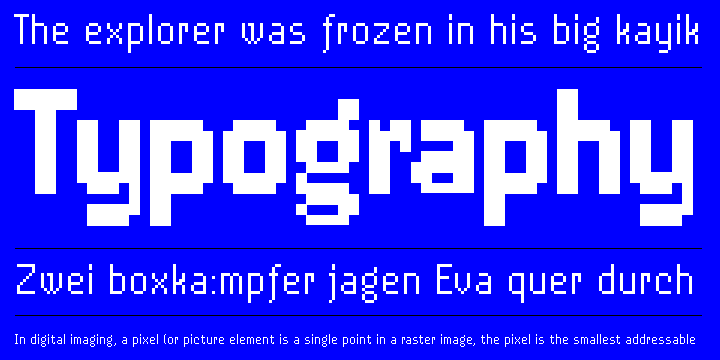
Dixplay
This family is optimized for use at 20 pixels.
Designed by: Eduardo Manso
Designed when: 2003
Dixplay, a typography based on a pixel grid, is available in two weights: regular and black. Inspired by videogame aesthetics of the 80s, intended for screen use in multimedia projects and, even it is not its primary application, it works fine on paper.
Dixplay has been conceived in 20 pt. size allowing more freedom to manipulate it and making a big difference with other fonts of its kind, this difference its more evident in Dixplay Black. Spacing is one of the most outstanding aspects of Dixplay. While “Pixelfonts” doesn't have kerning pairs, Dixplay offers more than 300 kerning pairs manually done that fit perfectly well to the grid. Dixplay is optimised for use with Flash, Imageready, Photoshop, Fireworks, etc.
As its names suggests, Dixplay was conceived for headlines in web pages and multimedia projects.Supports Western European Languages that uses the Latin Alphabet, with emphasis in Spanish language. Optimised for screen use at 20 pt. and its multiples (40, 60, 80 pt., etc.) and, even though it is not its primary application, it works fine on paper.